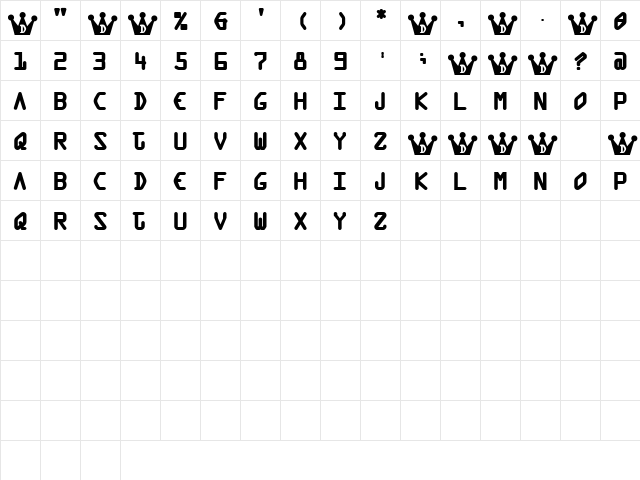
BigZeroSquared Regular
Design Context for BigZeroSquared Typeface
BigZeroSquared takes a measured approach to typography — its balanced proportions and neutral character make it a reliable workhorse for both digital and print work.
Pro Tip: Use BigZeroSquared in both headline and body roles to test its range before committing to a single application.